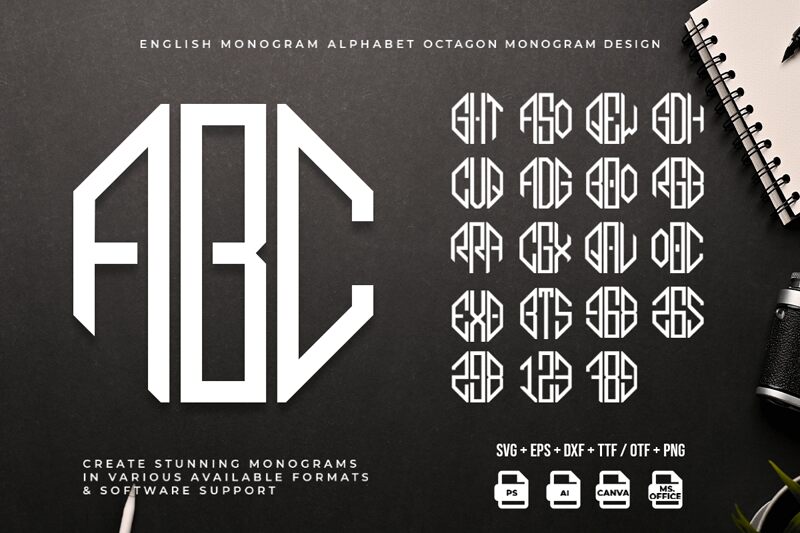
Octagon Monogram Alphabet
Octagon Monogram Alphabet font by Kong Font is a striking display typeface that captivates with its decorative charm and expanded width. This unique font stands out with its geometric design, offering a bold and sophisticated aesthetic that's perfect for creating eye-catching monograms, logos, and headlines. Its distinctive octagonal shapes invite creativity, making it an ideal choice for branding projects or artistic endeavors that demand attention.
Embrace this exceptional typeface to transform your visual projects into memorable statements.